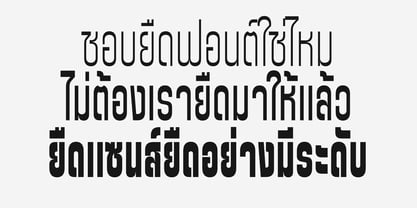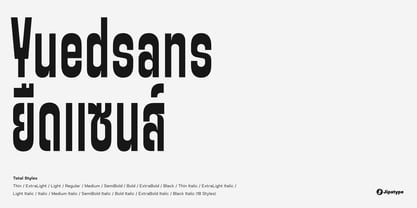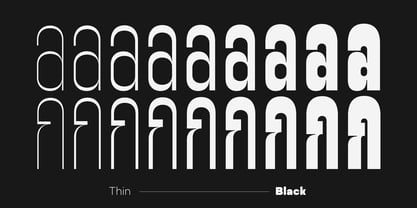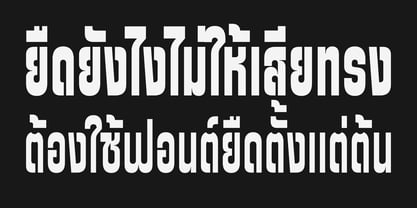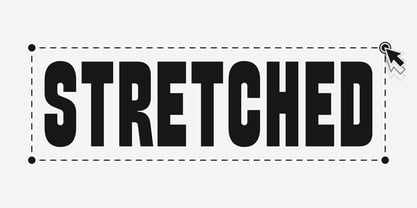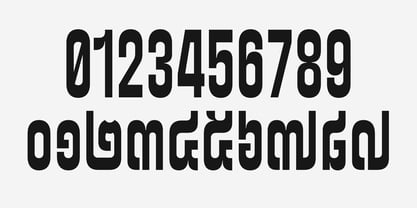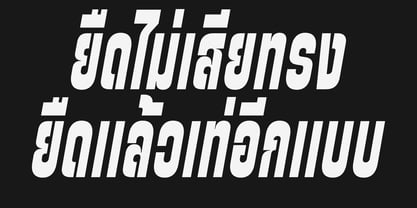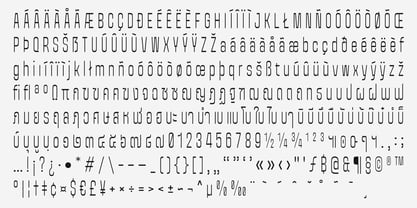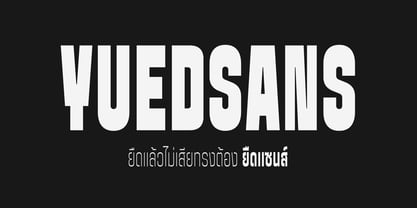
Yuedsans
by Jipatype
Yuedsans is a striking sans-serif typeface with a uniquely narrow and elongated form. Its distinctive appearance comes from a higher X-axis than Y-axis thickness, creating a tall and condensed look. Though it might appear stretched, this font was meticulously redrawn from scratch. The name “Yued” (ยืด) is a Thai word that means “stretch,” a perfect reflection of its design.
With 18 styles available, Yuedsans supports both Thai and Latin-1 Unicode, making it a versatile choice. Its eye-catching and bold character makes it ideal for headlines in print and digital media where you want to grab attention and make a memorable impact.